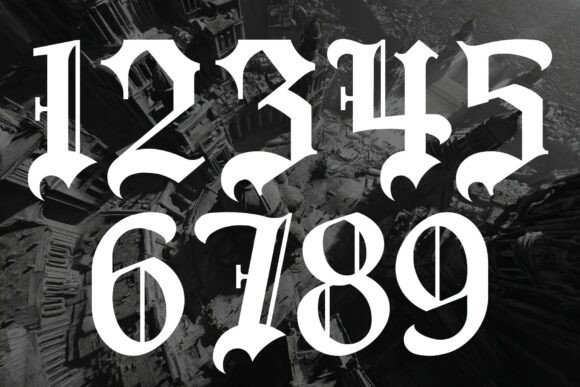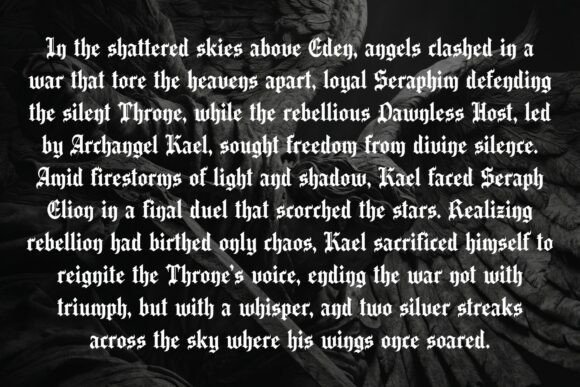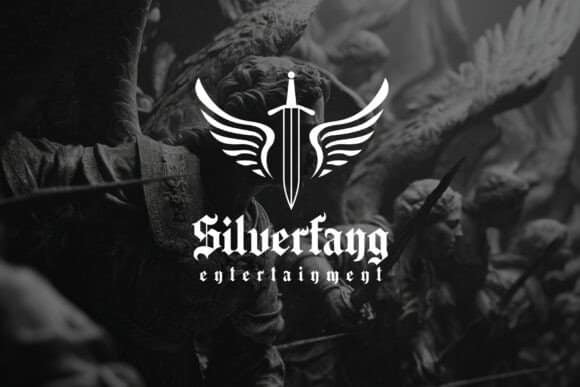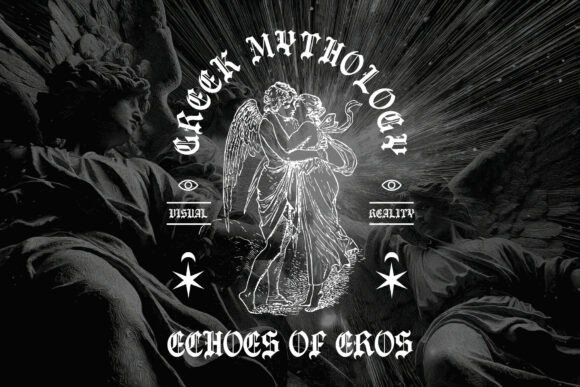
Arkhaven is an epic and beautiful gothic blackletter typeface that bridges the sacred and the sublime. Inspired by the majestic lettering of Old English manuscripts, cathedral inscriptions, and ancient tomes, Arkhaven radiates both power and grace.